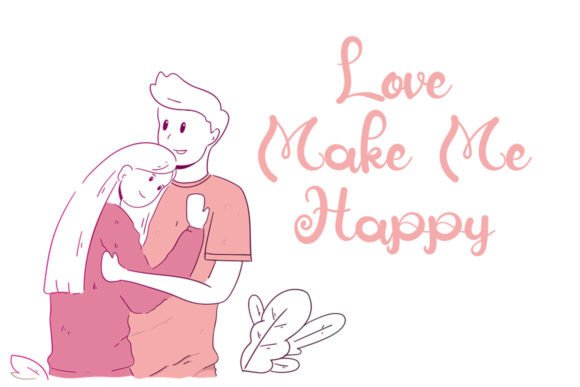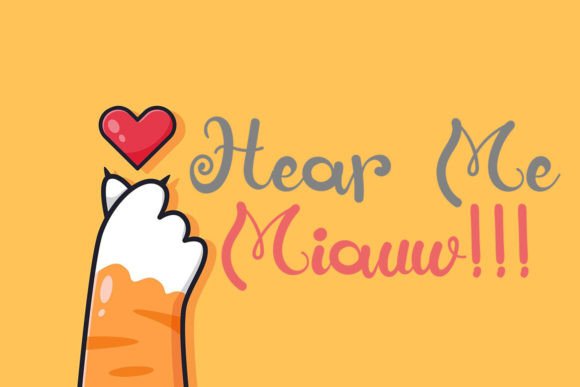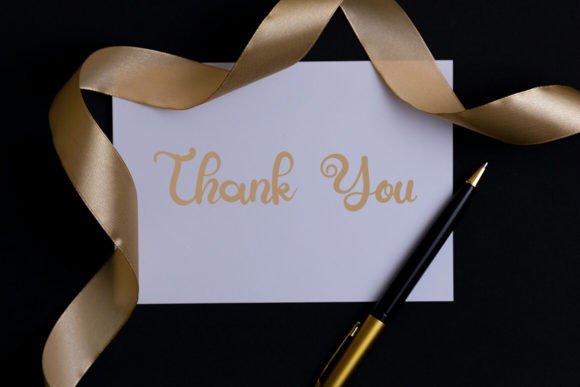
Introduction to Love Barbie Font
Love Barbie is incredibly functional and versatile.
With its multiple weights and styles, you can easily create a variety of design elements, from headlines and body text to logos and branding materials .
Key Features of Love Barbie Font
Why Choose Love Barbie Font?
Love Barbie Font offers exceptional quality and versatility, making it a valuable addition to your design toolkit. Whether you’re creating for personal projects or commercial use, Love Barbie Font delivers professional results.